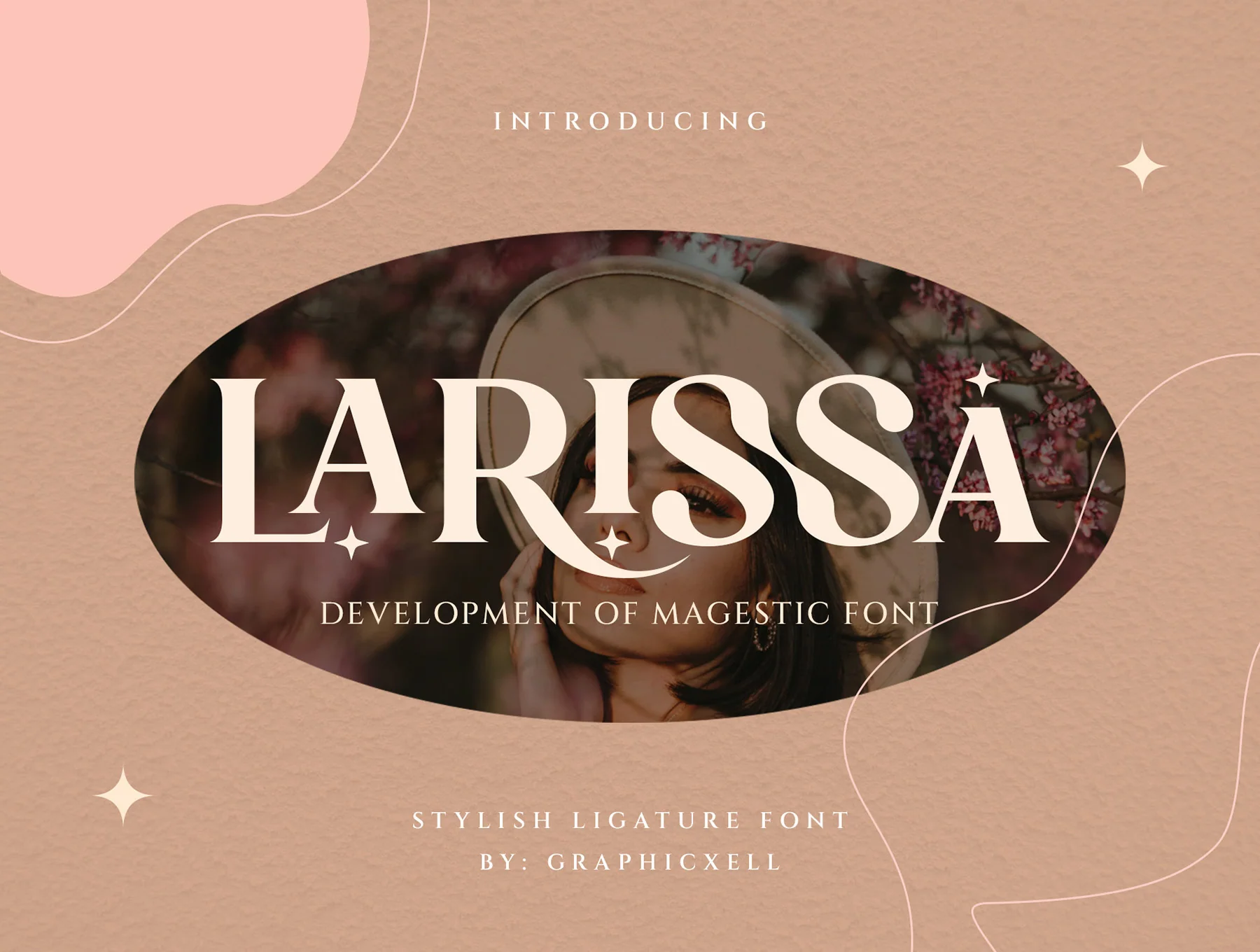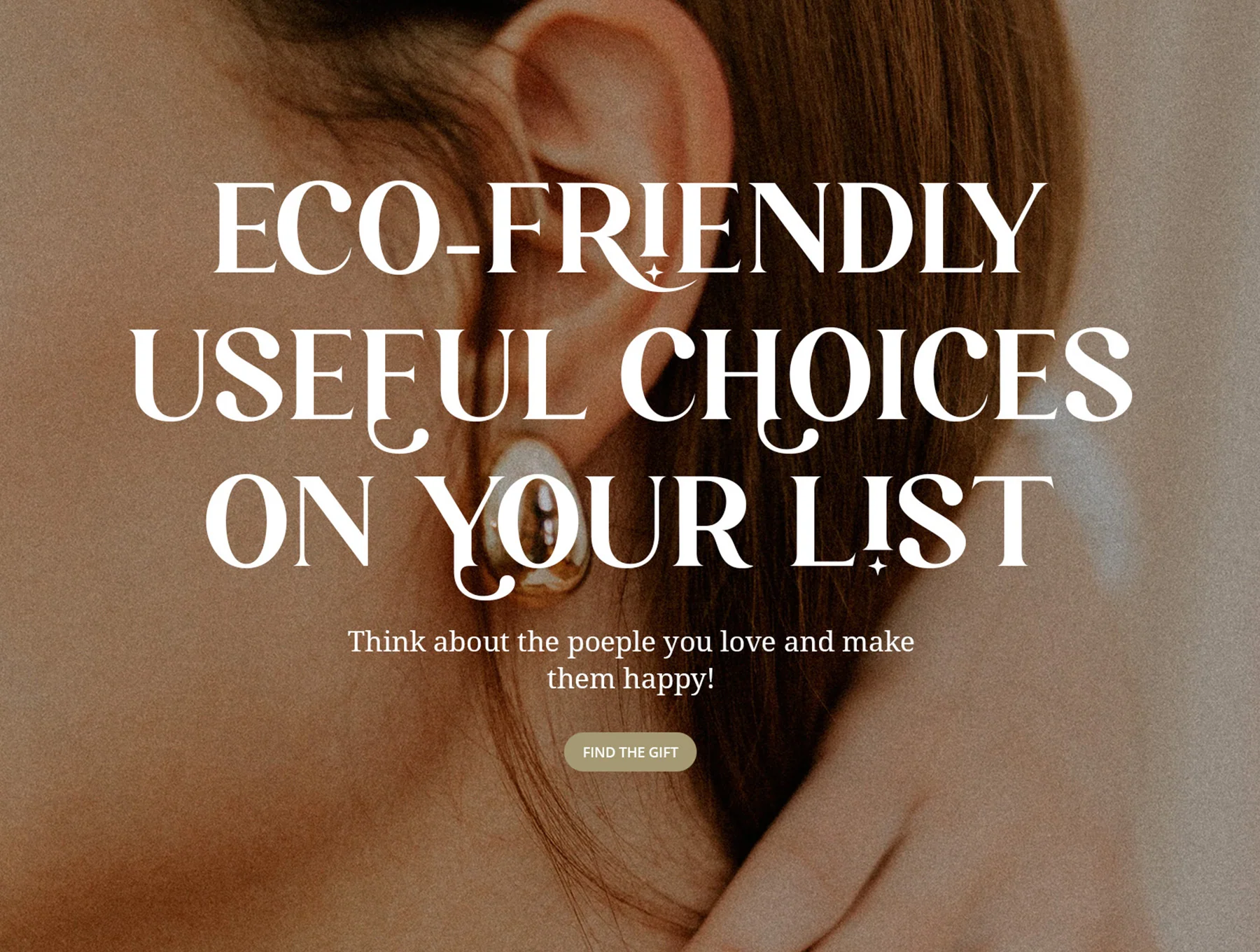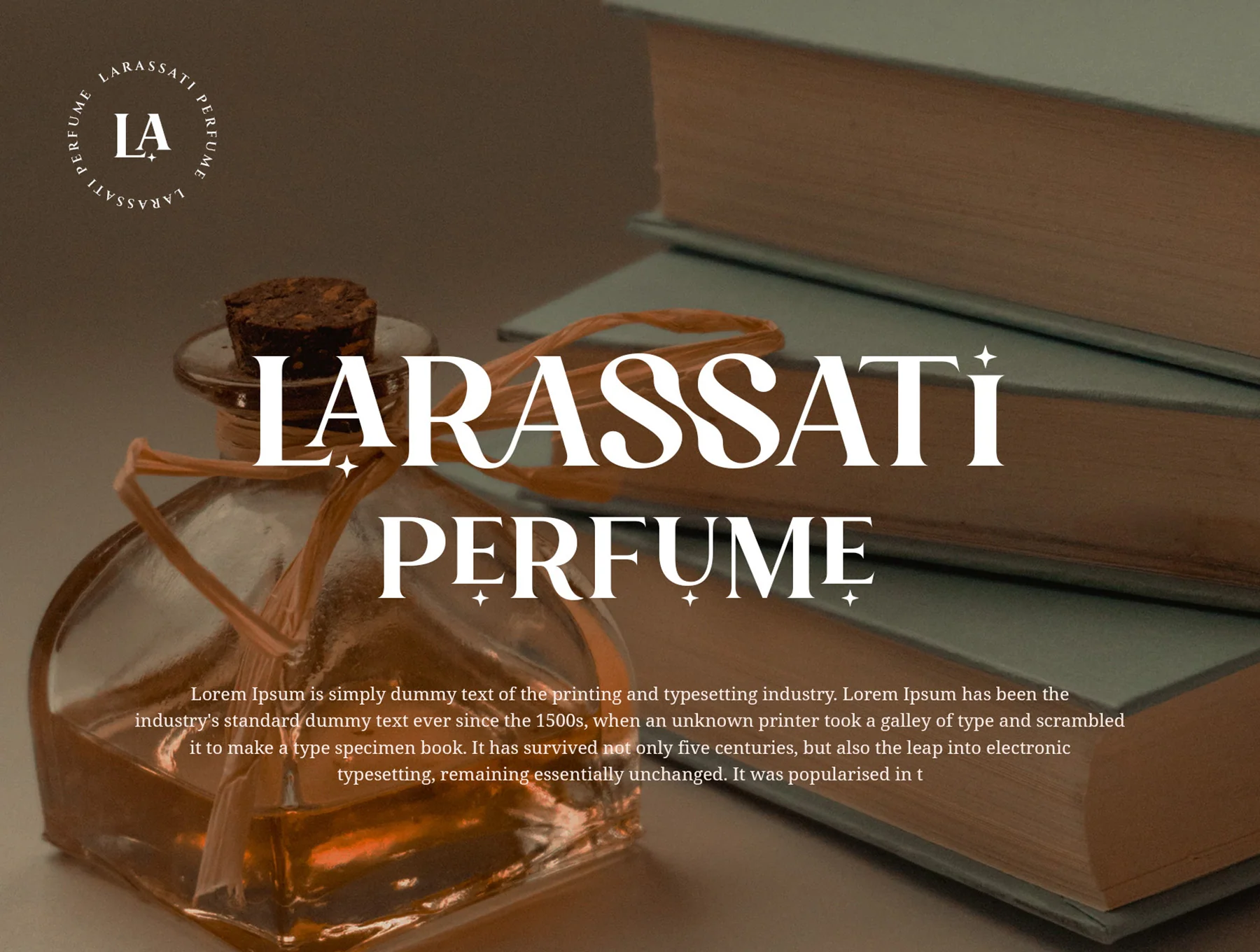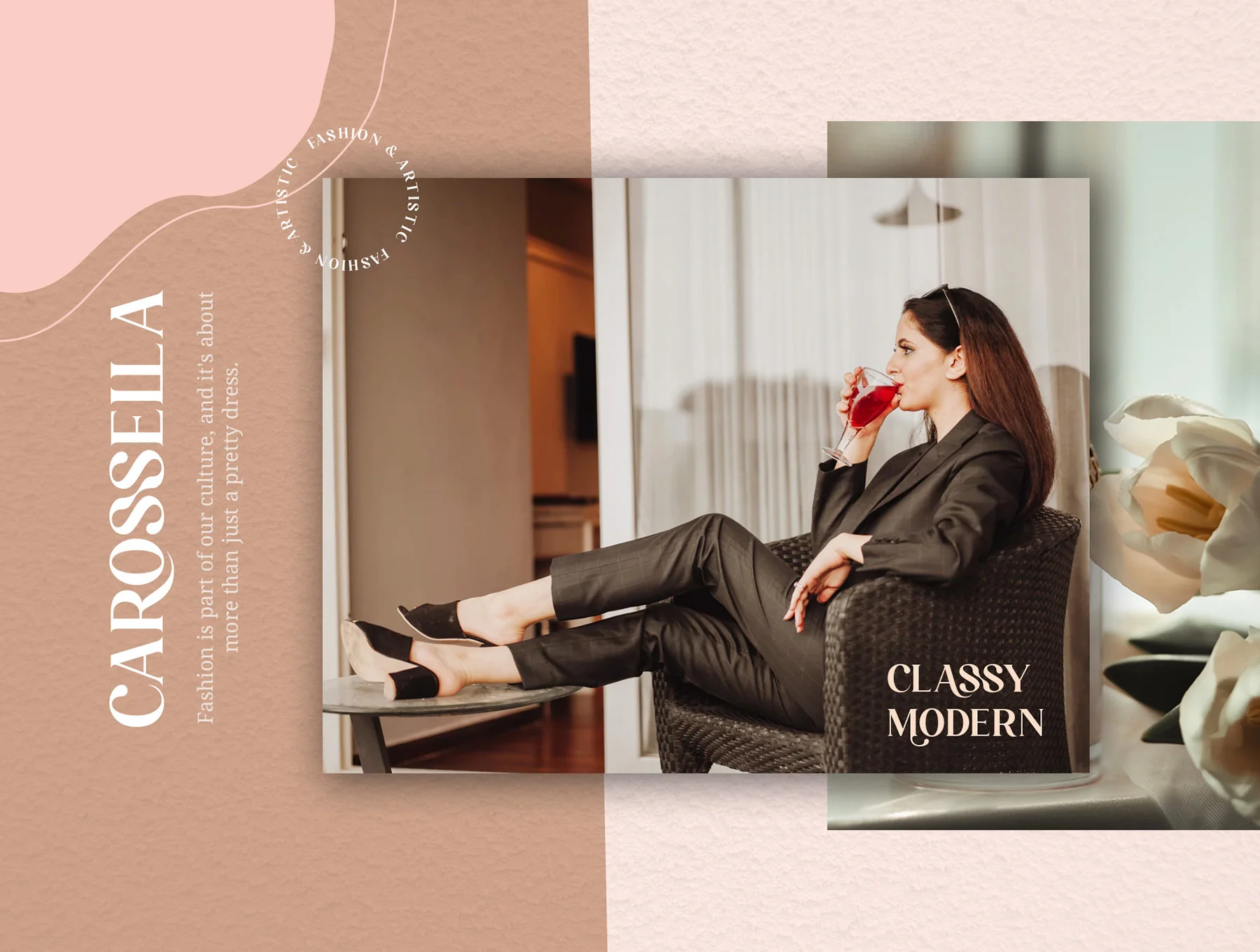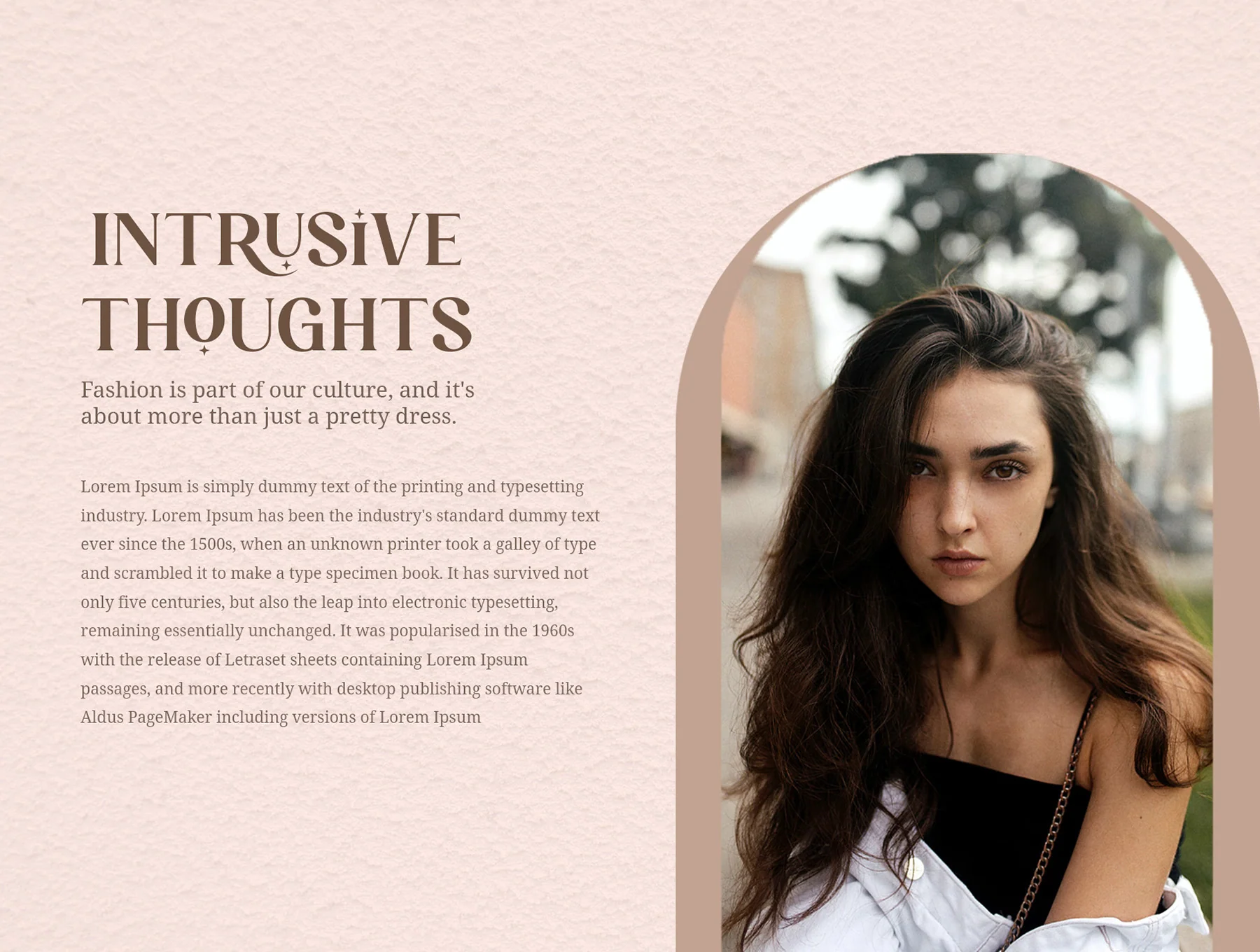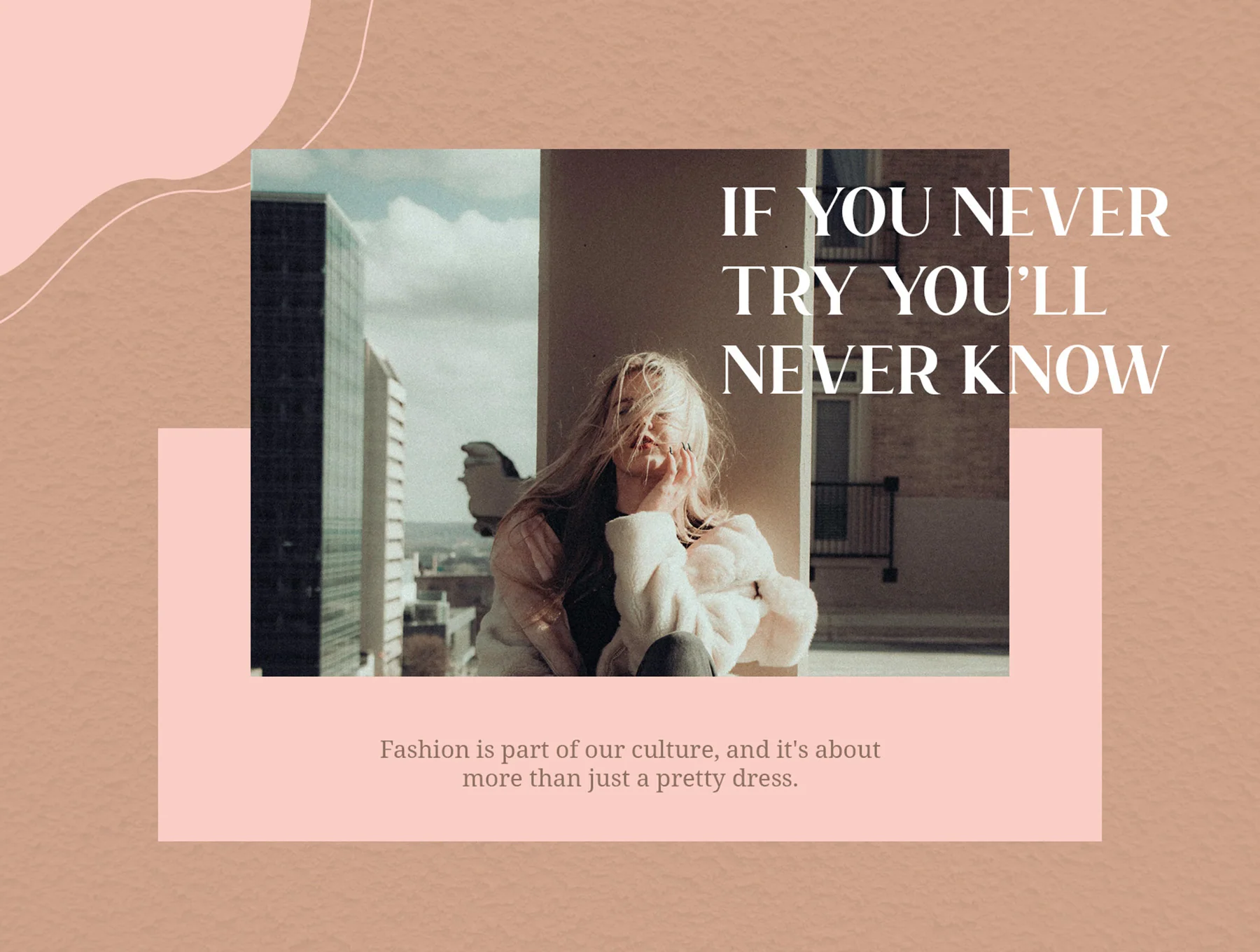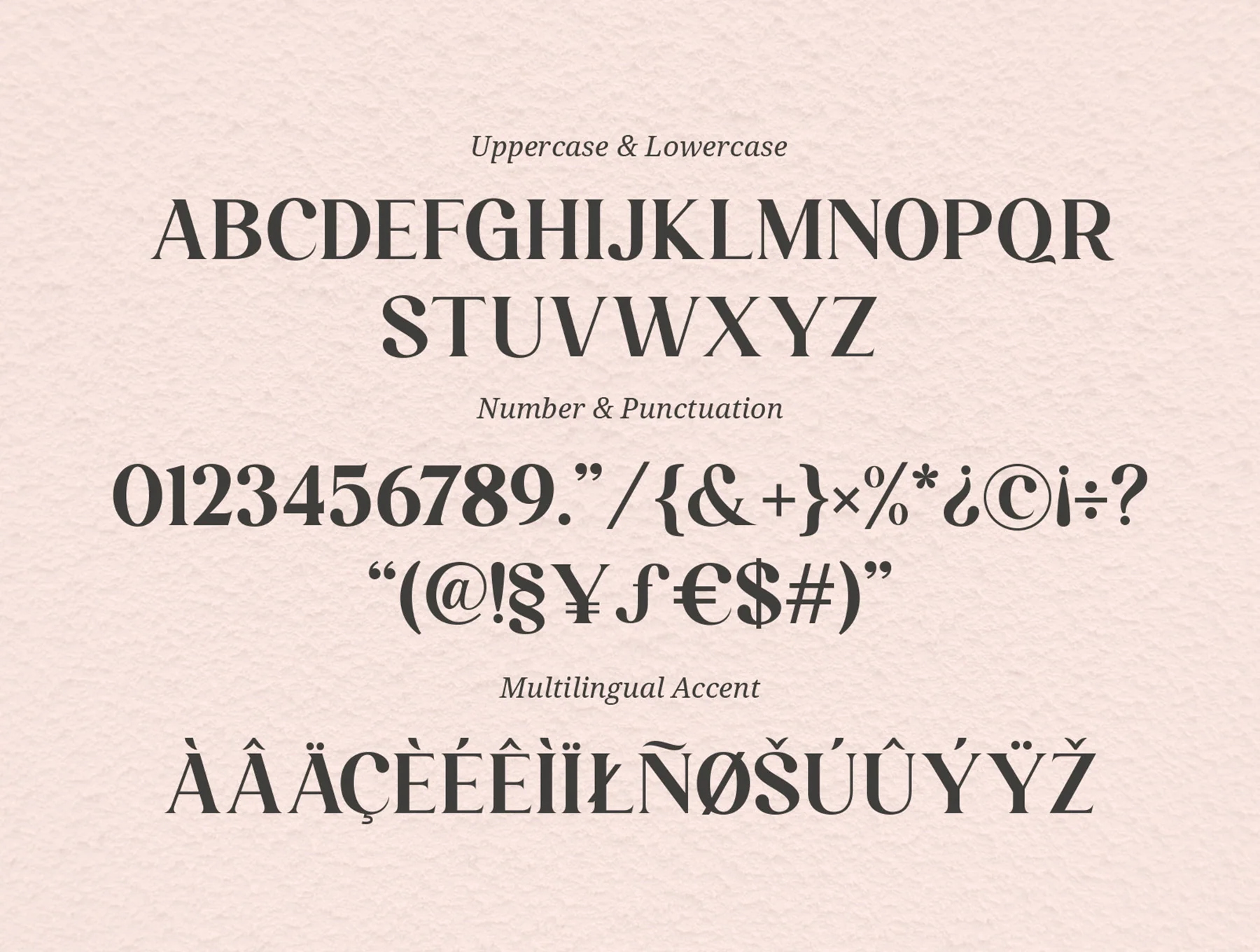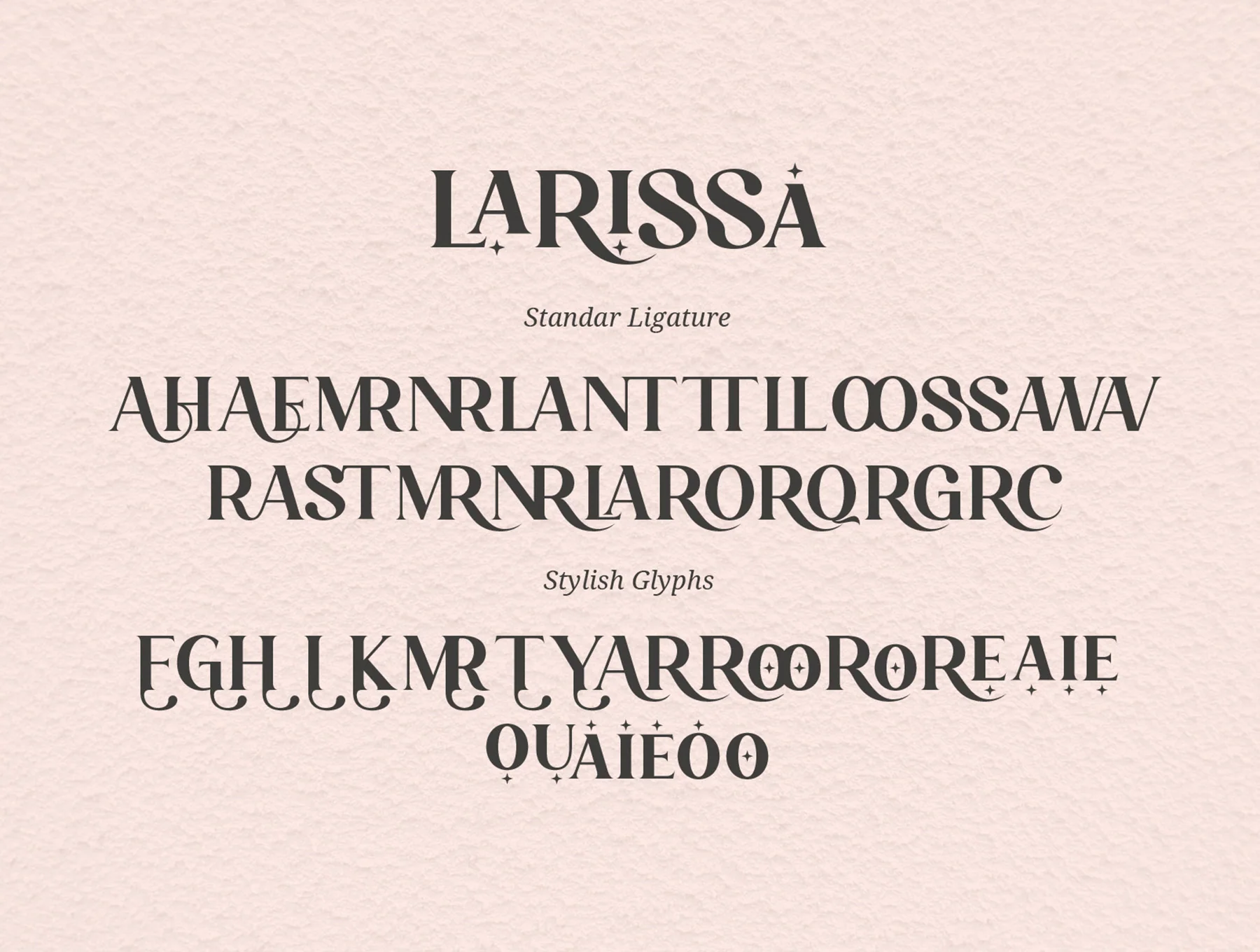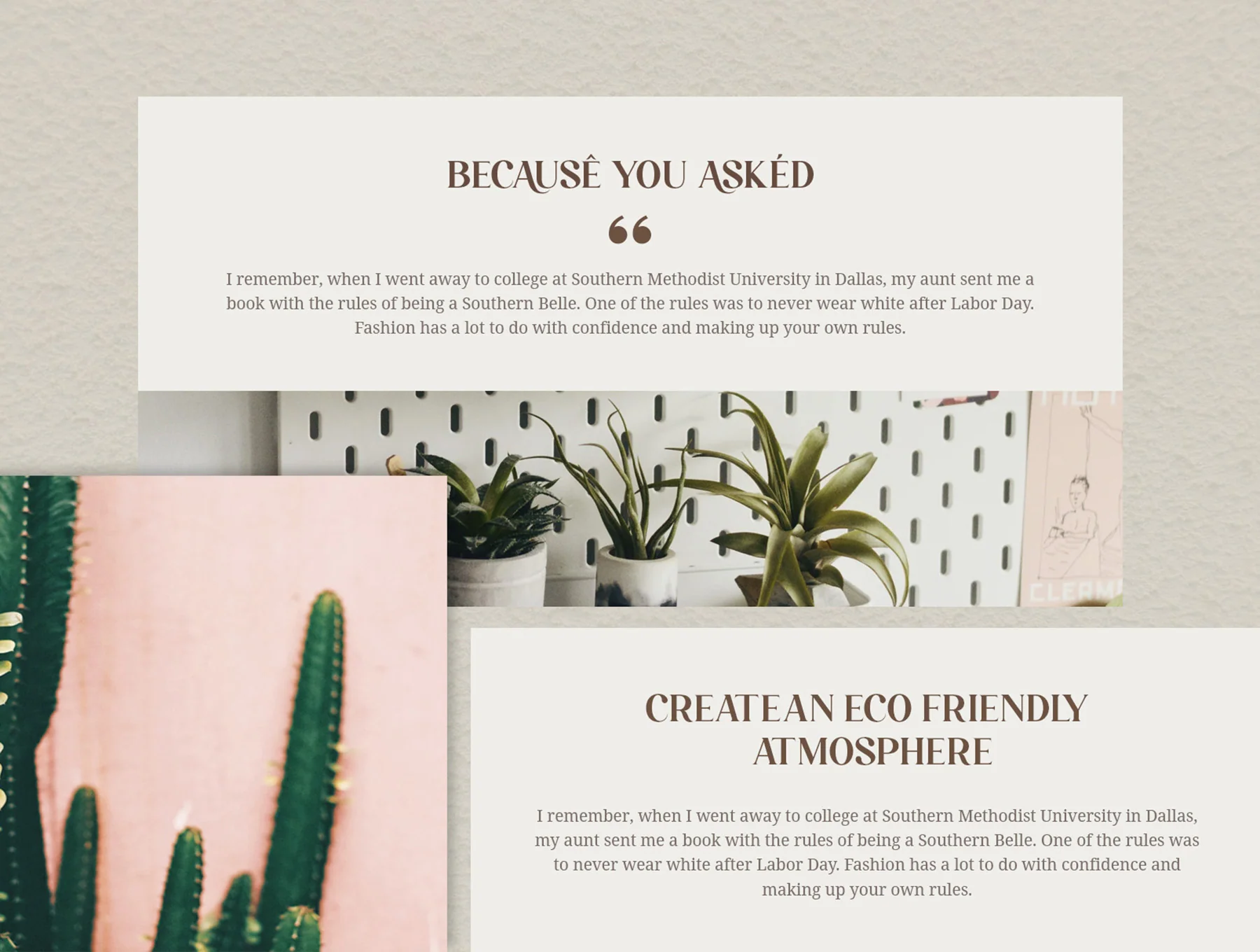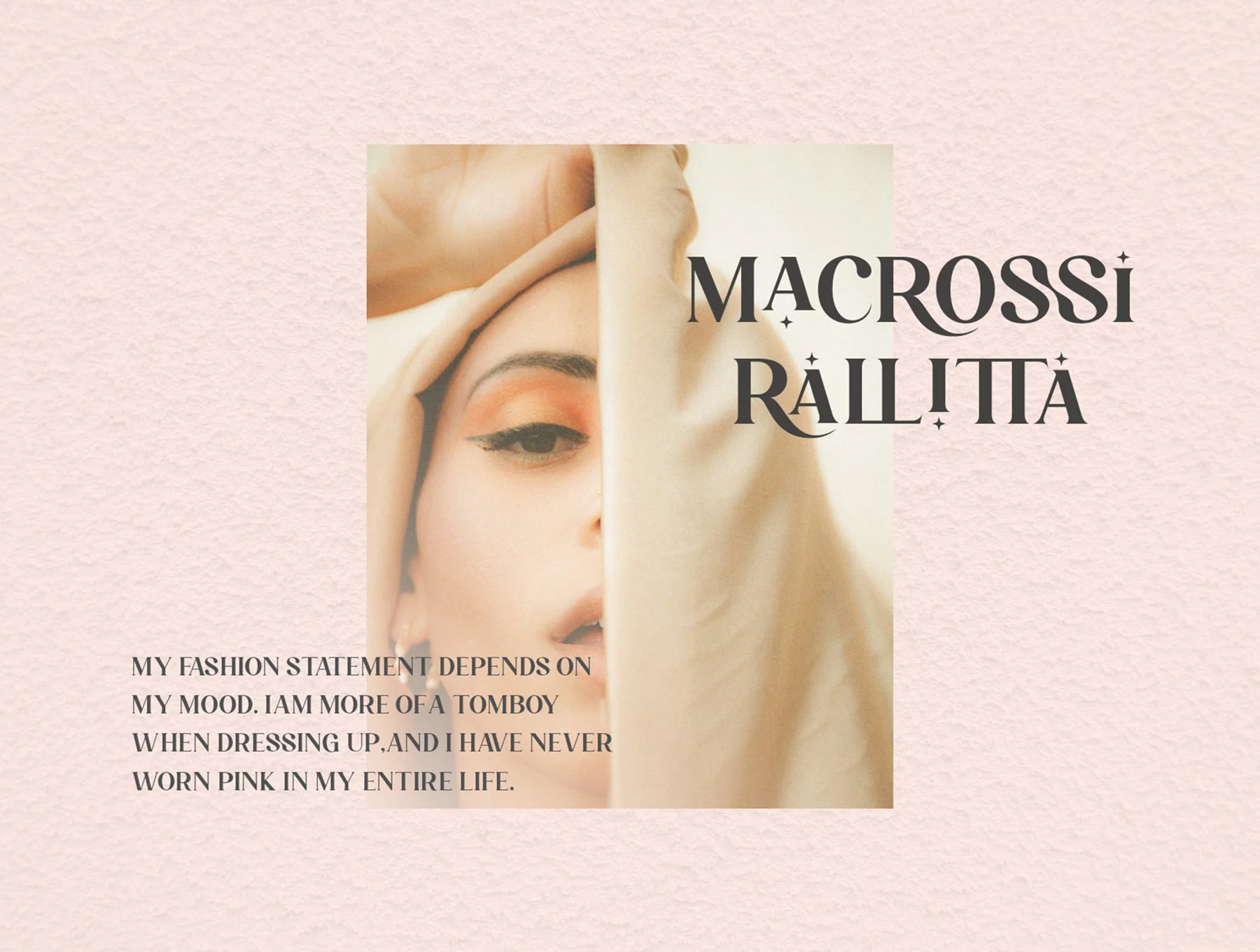
Larissa - Stylish Ligature Typeface
Elegant Ligature Font
AuthorGraphicxell
Complete uppercase and lowercase alphabet
Contemporary and elegant style
Multilingual characters, numbers, and punctuation
Larissa is a chic ligature typeface influenced by iconic minimalist logo design, suited for templates, brochures, videos, ads, branding, logos, and more. Includes OTF/TTF files, standard glyphs, web font, ligatures, accents, multilingual support, PC/Mac use, and easy setup. Works with Adobe apps and Microsoft Word. Preview images are for display only.